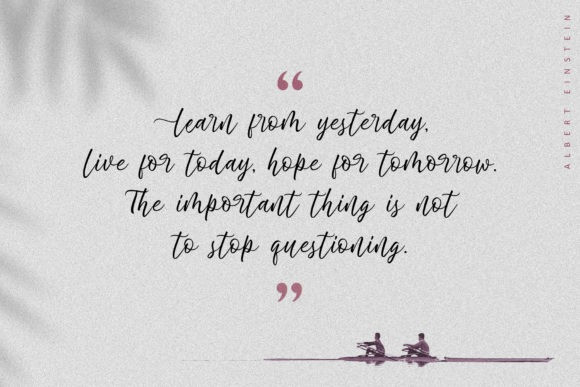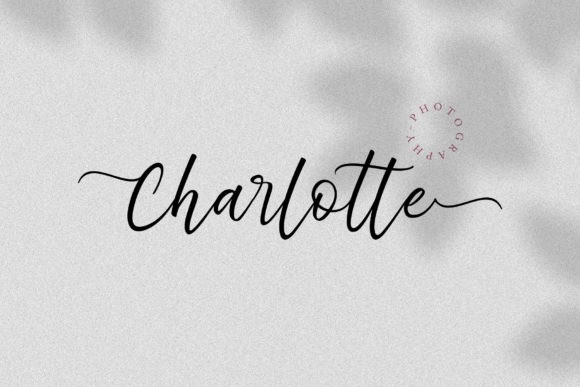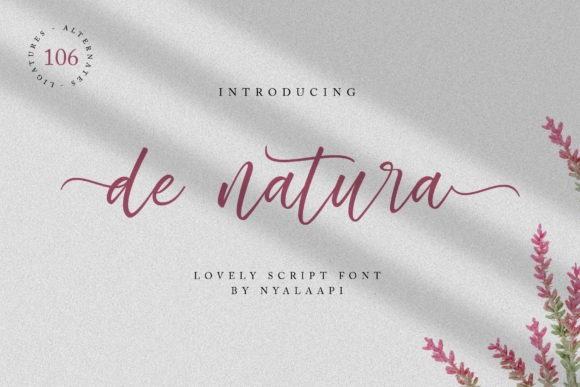
De Natura Script Font
Say hello to De Natura Script Font. It’s a modern script font with calligraphy style. The Austin font was created with authentic handwritting brush pen. This font is perfect for fashion brand, wedding invitation, business card, logo brand, signature, and for your any calligraphy projects! It’s designed and shared by Nyalaapi. It’s a magical script font carefully created with a touch of elegance. This is a beautiful combination of timeless elegance and authentic calligraphy. It features an incredibly classic style, while still keeping a friendly feel. This font is the perfect fit for making original and outstanding designs.